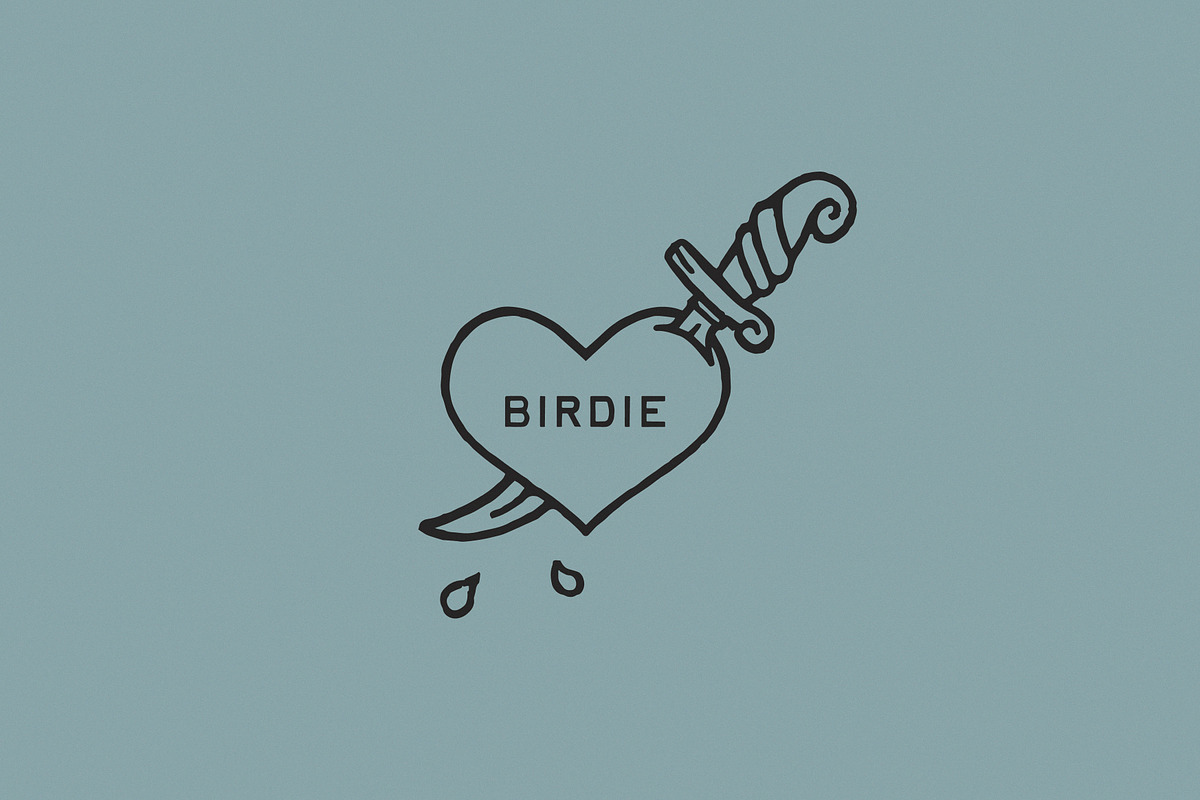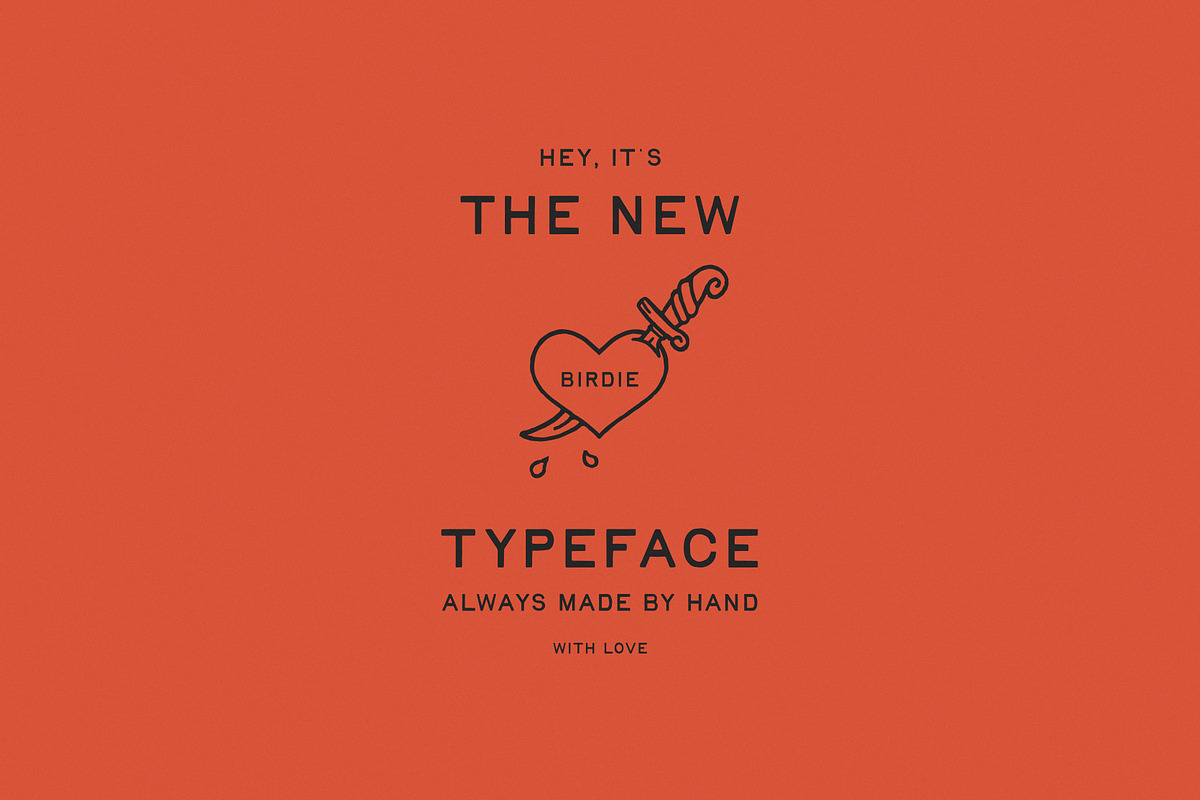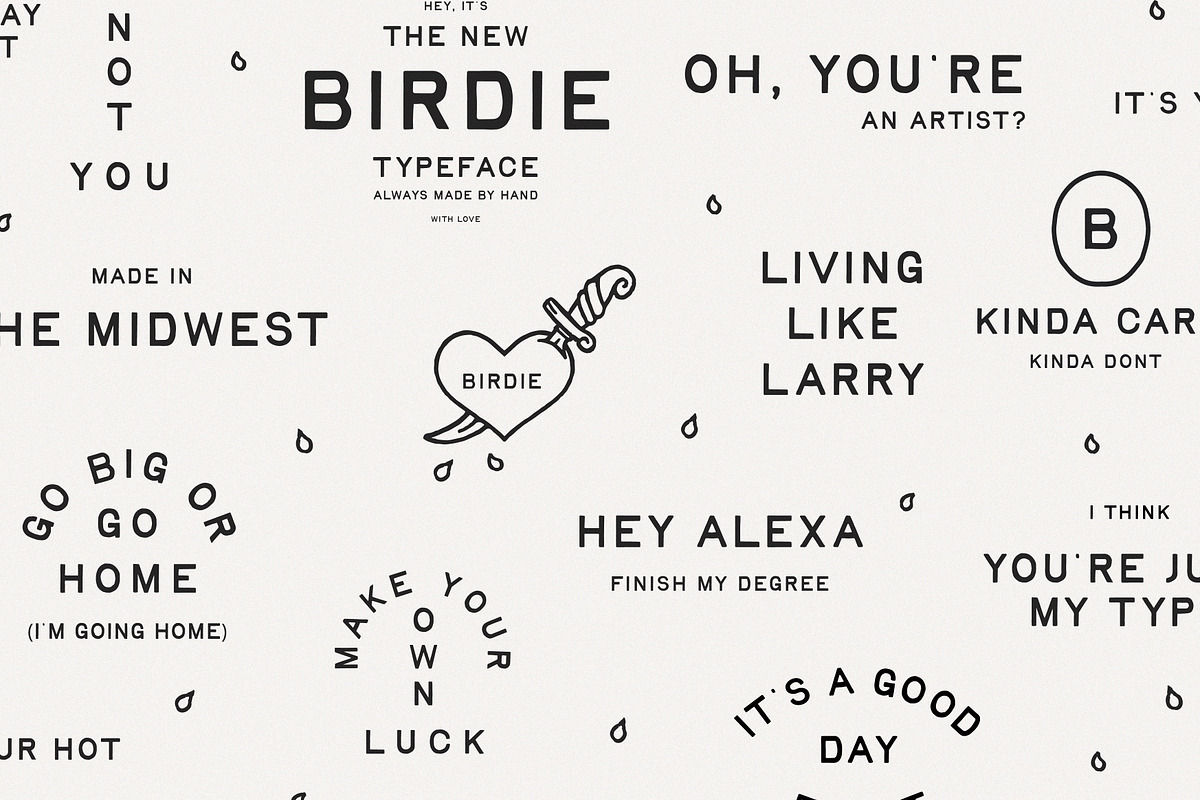
Birdie Font
Birdie has been the most-used, most-downloaded, and least-regretted font I’ve ever released. It’s inspired by vintage print — a little rounded, a little off — and now includes lowercase for the sake of sanity. Great for layouts that want a human feel without getting all hand-drawn about it.
Birdie | Vintage Print Font Preview
This preview highlights the unique shapes and multi-height variations of the Birdie Font.